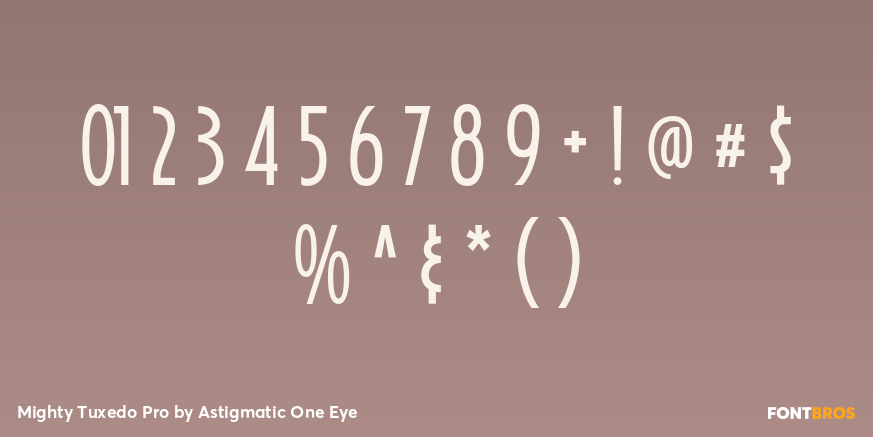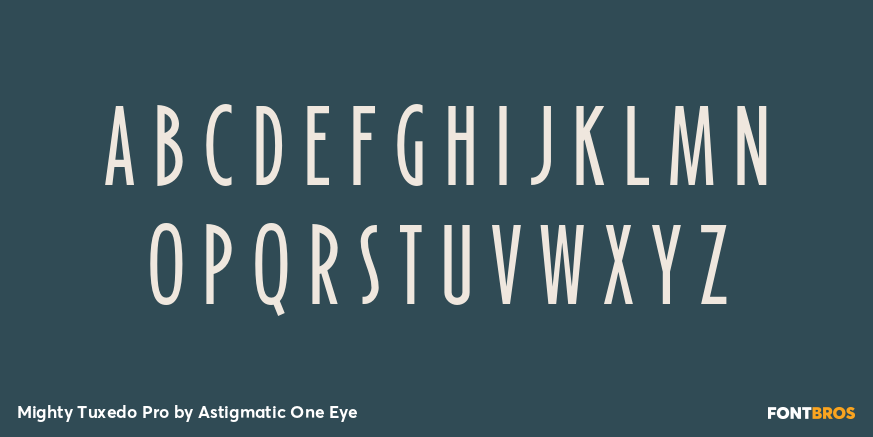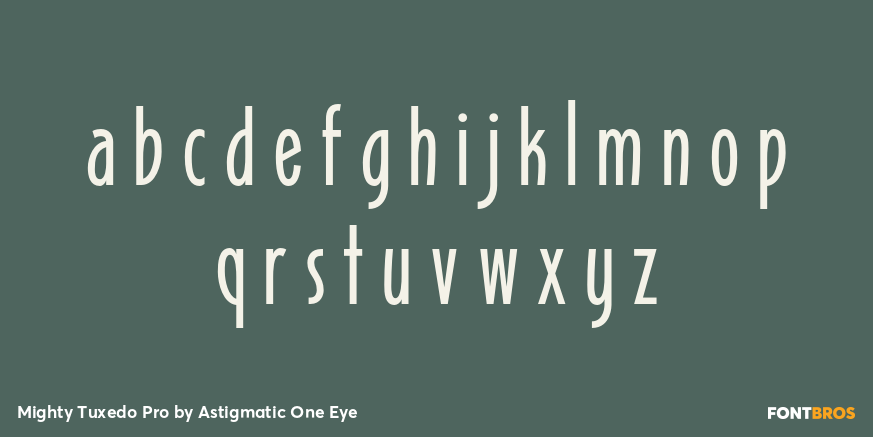
Mighty Tuxedo Pro
Font Family by Astigmatic One Eye
Inspired by 1930's Art Deco lettering styles, the Mighty Tuxedo font family comes complete with a Regular, and all caps Luxe version, to give it an impressive range of flexibility & flair.
The new OpenType version includes: expanded language character set, combining of Regular & Smallcaps fonts into a single typeface with Smallcaps as an Opentype feature, limitless fractions, superiors, inferiors, tabular and proportional figure sets, and ordinal characters to type 1st, 2nd, 3rd, etc.
A show-stopper of a poster display typestyle, with the ability to work well in condensed text set situations to boot!